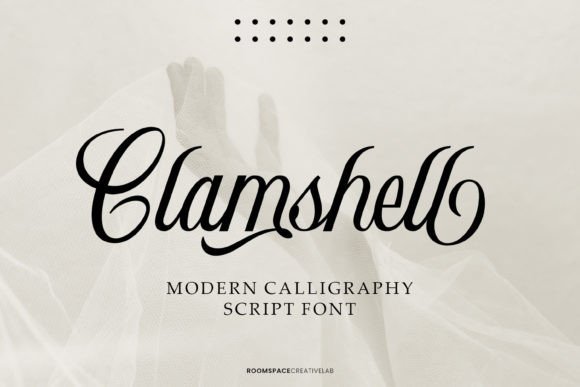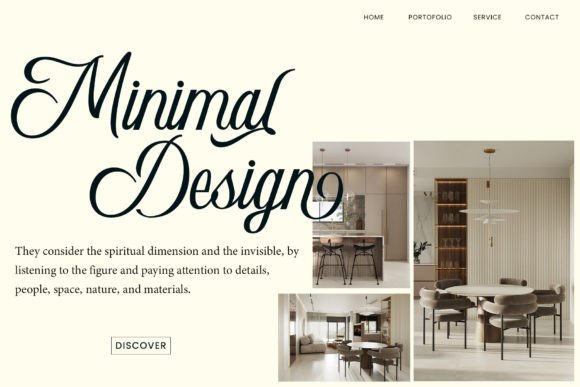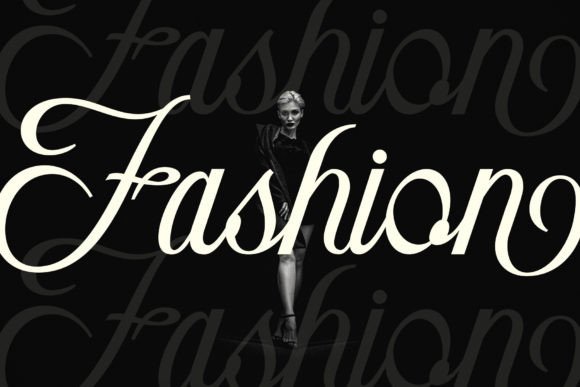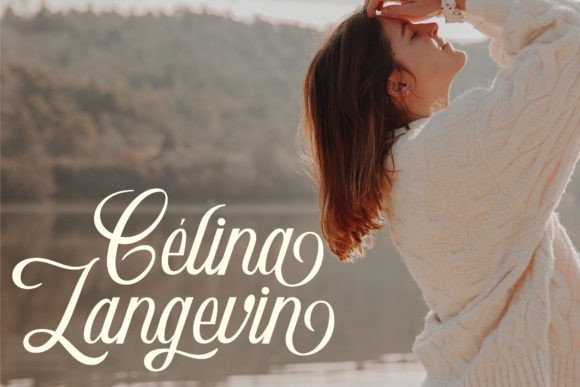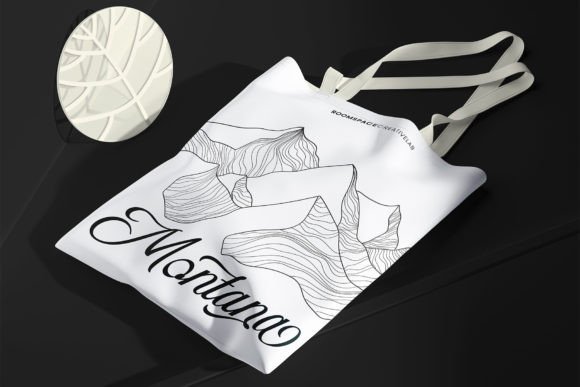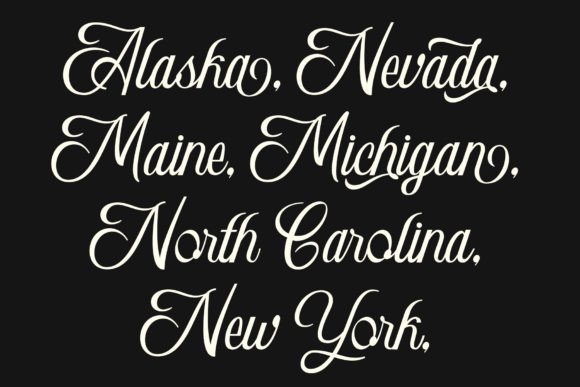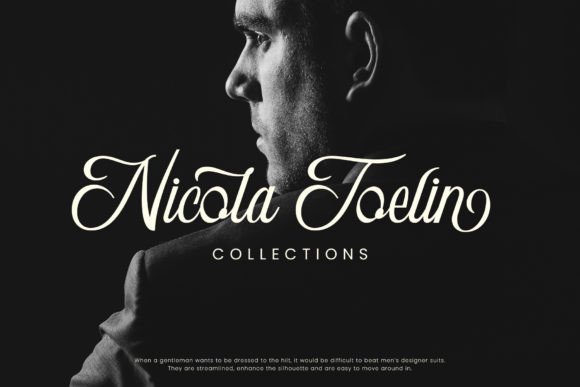
Discover the Timeless Charm of Clamshell Font
As you sit at your desk, pen in hand, staring at a blank page, the pressure to create something truly special can be overwhelming. But what if you could tap into a font that not only brings elegance to your designs but also makes them feel timeless? Enter Clamshell Modern Calligraphy Script font – a harmonious blend of sophistication and contemporary flair that seamlessly adapts to any design landscape.
Clamshell Font is more than just a typeface – it’s a tool for designers who value both beauty and functionality. With its effortless blend of classic and modern elements, it’s the perfect choice for professionals seeking designs that are both versatile and sophisticated. Whether you’re working on a high-end branding project or a wedding invitation, Clamshell Font is sure to bring a touch of sophistication and elegance to your work.
Clamshell Font Key Features
- Font Family: Clamshell is a typeface family designed for digital use, with multiple weights and styles available.
- Unique Characteristics: Clamshell is known for its distinctive, curved design elements and subtle texture, giving it a unique aesthetic.
Designer Review: Clamshell Font
Overall, I’d say the Clamshell Font has some great qualities, but also some notable limitations.
- Unique aesthetic: The Clamshell Font has a distinctive, retro-inspired design that can add a touch of whimsy to any project.
- High legibility: Despite its unconventional appearance, the font is surprisingly easy to read, making it suitable for body text and short passages.
- Customization options: The font family includes a range of weights and styles, allowing for some flexibility in terms of typography.
- Limited language support: Unfortunately, the Clamshell Font doesn’t support as many languages as I’d like to see, which could be a problem for multilingual projects.
- Not ideal for headings: Due to its relatively small x-height, the font may not be the best choice for headings or titles, where clarity and impact are crucial.
- May not scale well: As the font size increases, the unique characteristics of the Clamshell Font can start to look a bit awkward, which might detract from the overall design.
The Clamshell Font is a fascinating, if imperfect, addition to any designer’s toolkit. While it excels in certain areas, its limitations should be carefully considered before committing to a project. With a bit of planning and flexibility, however, it can be a great choice for the right type of design.
The Clamshell font is commonly used in:
1. Retro-style designs and advertisements.
2. Vintage-inspired packaging and branding.
3. Digital products and software interfaces.
4. Graphic novels and comic books.
Tips for Getting the Most Out of Clamshell Font
For optimal results, use the Clamshell font in combination with other fonts that share a similar aesthetic. Experiment with different font sizes, colors, and arrangements to create visually appealing designs.
Alternatives to Clamshell Font
Playfair Display is an elegant, high-end serif font ideal for luxury branding, high-end fashion, and premium products. It’s a good alternative to Clamshell Font when you need a sophisticated, vintage feel without the distressed look.
Comparison: While Clamshell Font has a distressed, vintage aesthetic, Playfair Display is more refined and polished, making it suitable for high-end applications.
The Clamshell Font is designed to be highly legible at small font sizes, making it an excellent choice for digital applications where text is often displayed in tight spaces. The font’s geometric structure and optimized metrics ensure that it remains clear and readable even at very small sizes.
What is the recommended line height for the Clamshell Font?
The recommended line height for the Clamshell Font is 1.2-1.5 times the font size. This allows for sufficient spacing between lines of text and helps to maintain the font’s legibility and readability.